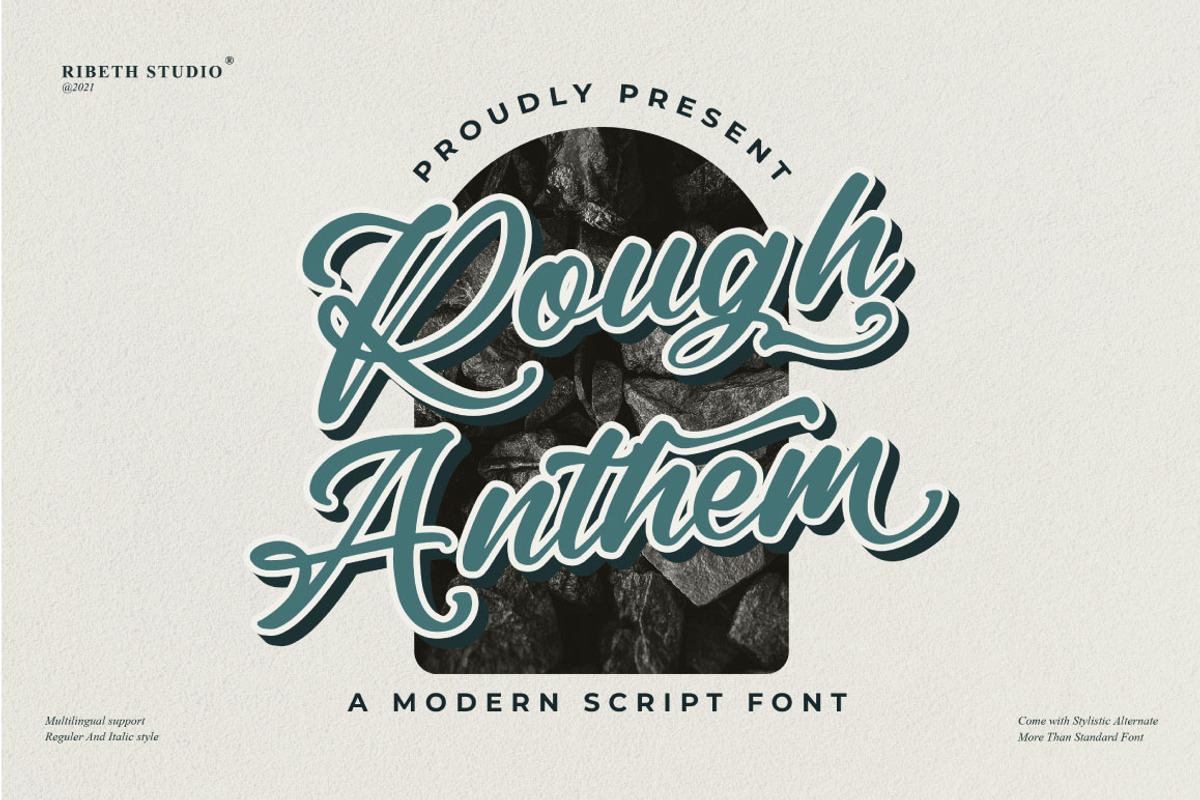
The Rough Anthem - Modern Script Font Free Download is a bold and expressive typeface that combines the fluidity of script with a raw, rugged edge. Perfect for branding, social media graphics, event posters, and creative projects, this font adds an authentic, handcrafted feel to any design.
With its thick brush strokes and dynamic letterforms, Rough Anthem makes a strong statement while maintaining a stylish and modern look. It includes uppercase and lowercase letters, numbers, punctuation, and multilingual support, ensuring versatility across a variety of creative uses.